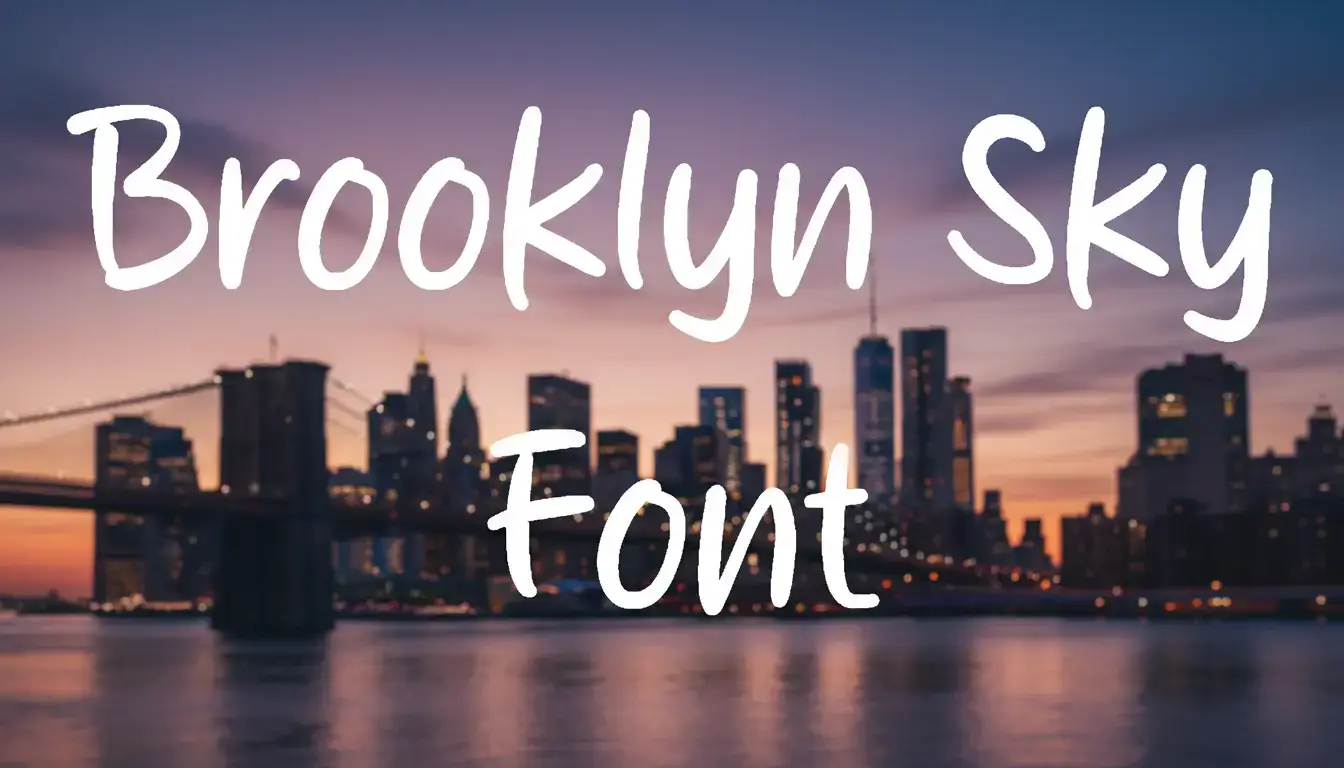
Brooklyn Sky Font
Brooklyn Sky
Brooklyn Sky is a script font designed by MJType (Muhamad Junaid). The letters have the smooth movement of real pen lettering, which is why even a single name looks special in it. It's a free download, and you can try it with your own text in the preview above first.
What You Can Type With Brooklyn Sky
You get every letter from A to Z in both cases and all the numbers from 0 to 9, which means Brooklyn Sky can handle full sentences, dates and prices. Common punctuation such as &, !, ? and @ is included as well. It also has the accented letters you need for Spanish, French, German, Portuguese and Italian.
Where Brooklyn Sky Works Best
Think of Brooklyn Sky for wedding invitations, logos and signature-style headings. Script fonts read best in short bursts, so keep it to names, titles and one-line quotes. Skip all caps: script capitals are drawn to start a word, not to fill one.
Does Brooklyn Sky support accented letters?
Yes. Brooklyn Sky includes the accented letters needed for Spanish, French, German, Portuguese and Italian, so it works for more than just English.